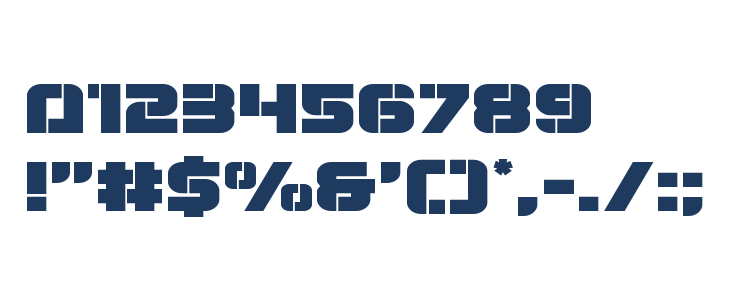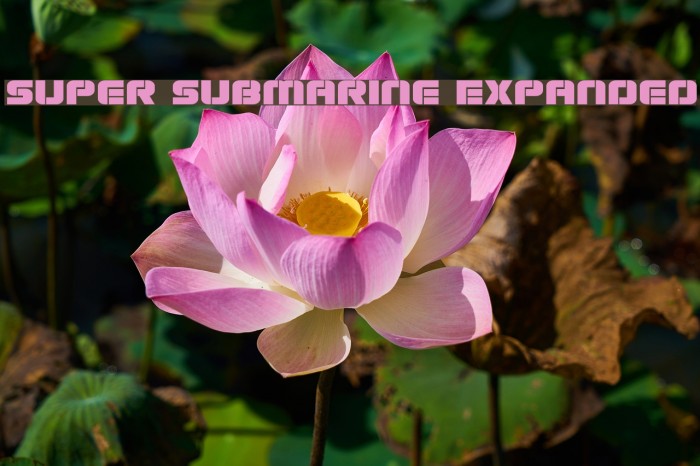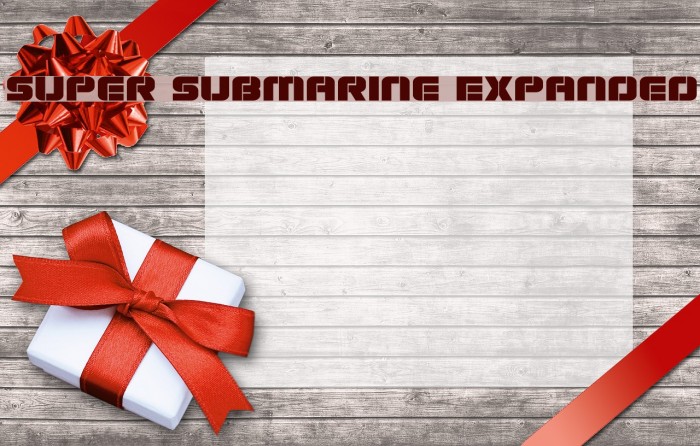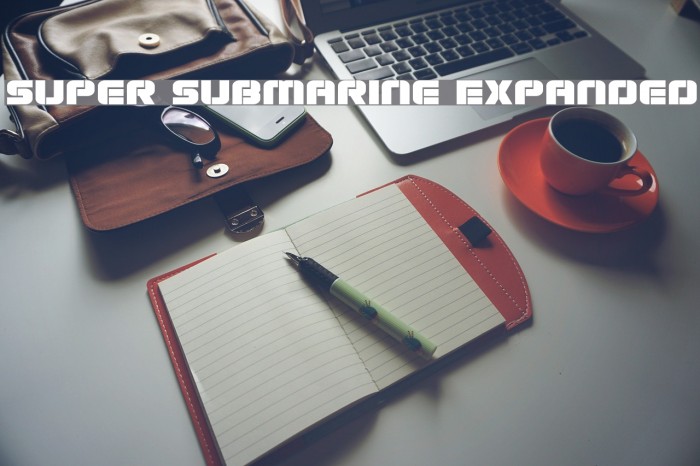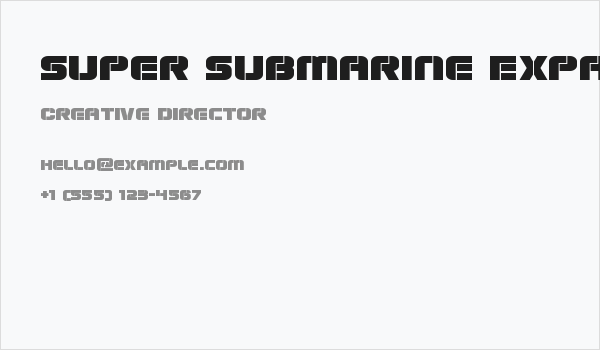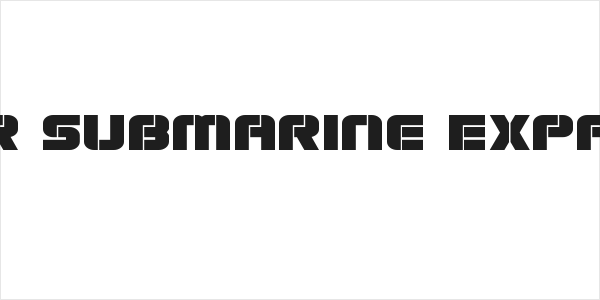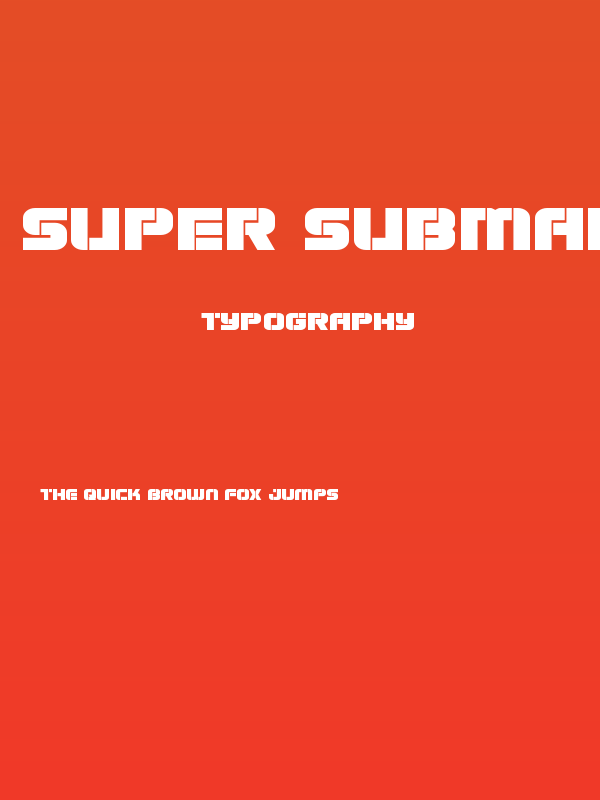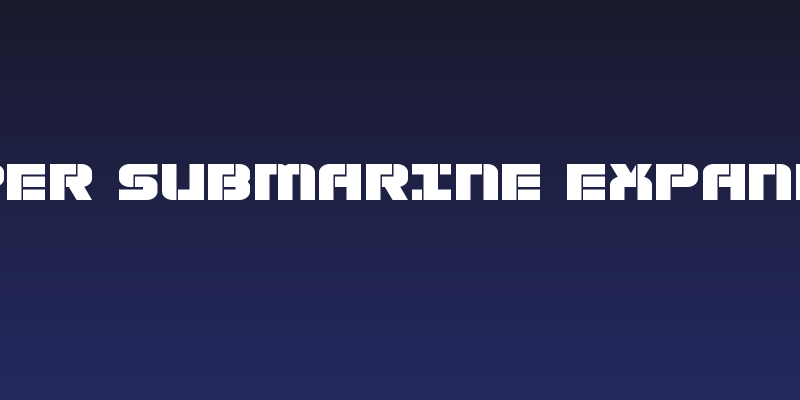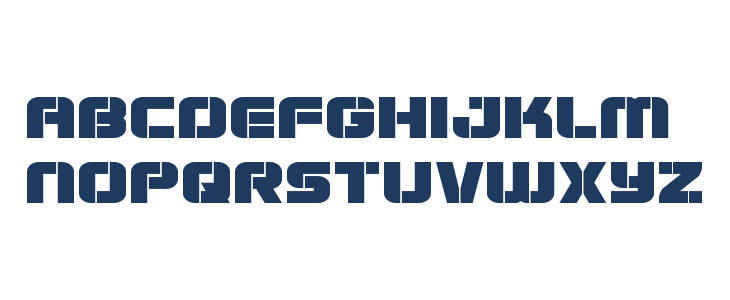
Super Submarine Expanded Font
Super Submarine Expanded Description
This font features a bold, geometric style with a distinctly modern and industrial feel. The characters are constructed with thick, block-like shapes, giving them a strong and commanding presence. The design incorporates sharp angles and straight lines, creating a sense of precision and strength. The uppercase and lowercase letters maintain a consistent width, contributing to a uniform appearance. The numerals and special characters follow the same design principles, ensuring cohesion across all elements. This font's expanded width and bold weight make it particularly suitable for impactful headlines and attention-grabbing designs.
| Proposed Projects | Ideal for branding, posters, signage, and any project requiring a strong visual impact. |